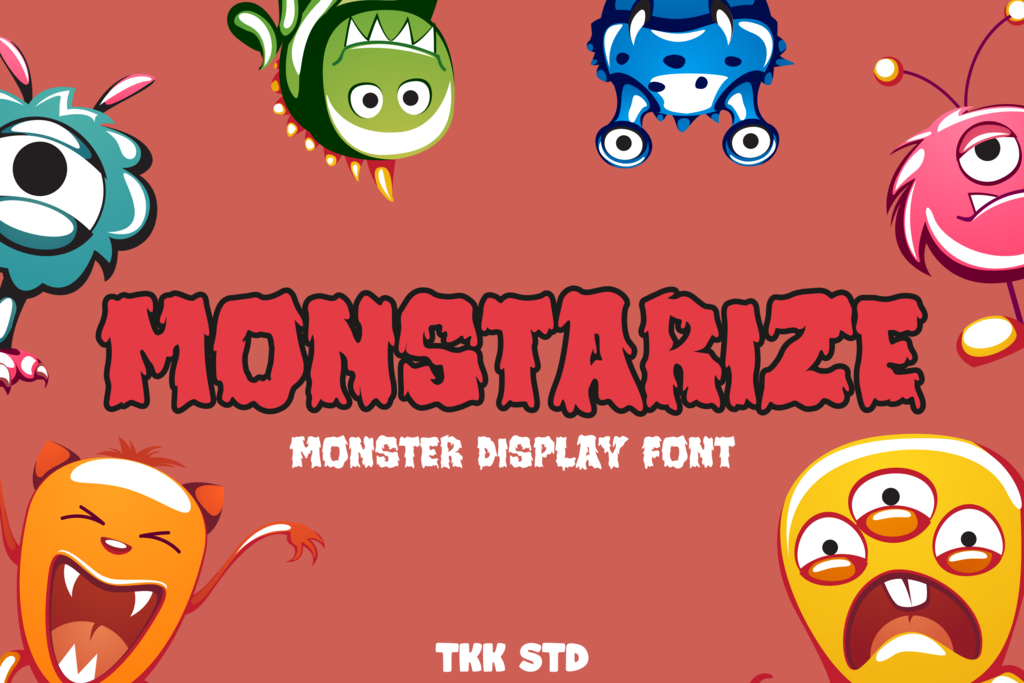
Monstarize - Gaming Font
MONSTARIZE gaming font brings all terror and scare to all your viewer. Suit perfectly for Online Games, poster, movie title, fast food menu, magazine, youtube covers, youtube thumbnails, social media page covers and so on… Happy designing. Whatís Included :